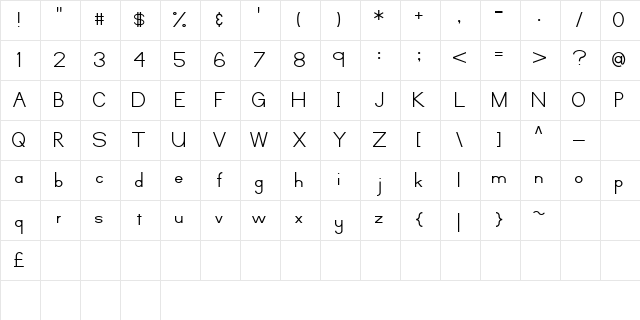
Zamyatin Regular Free Font
Zamyatin Regular
Design Context for Zamyatin
Zamyatin is a composed and adaptable typeface that performs quietly and consistently across a wide range of design contexts.